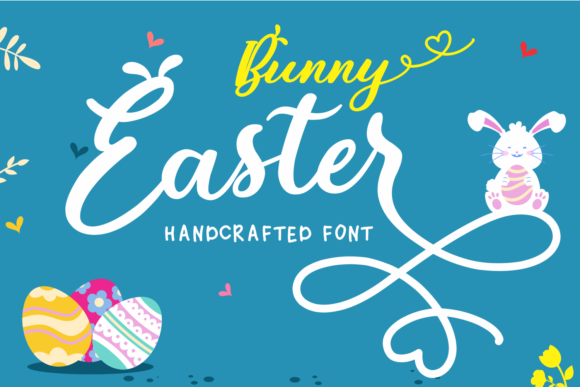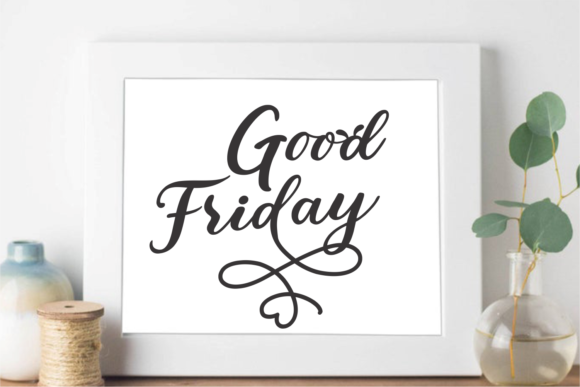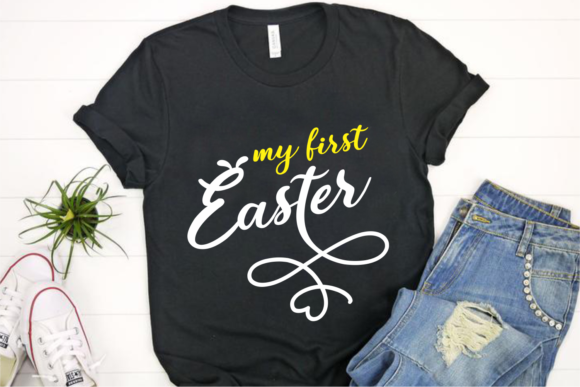
Bunny Easter Font
Bunny Easter is charming and dynamic, but also elegant. This versatile script font has a wide range of applications ranging from Easter DIY projects to spring-themed branding, and is guaranteed to add a magical touch to your next design.